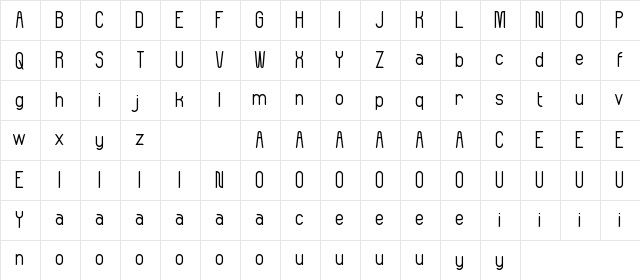
Neitherly Demo Sans Regular
| Foundry | CalligraphyFonts.net |
| Designer | Nouval & Suci Anita |
Design Context for Neitherly Demo Sans Typeface
Neitherly Demo Sans is a composed and adaptable typeface that performs quietly and consistently across a wide range of design contexts.